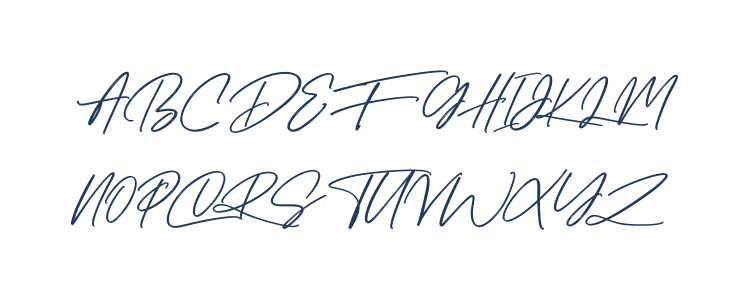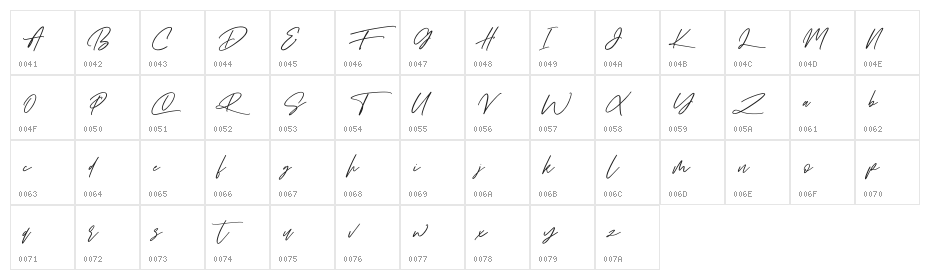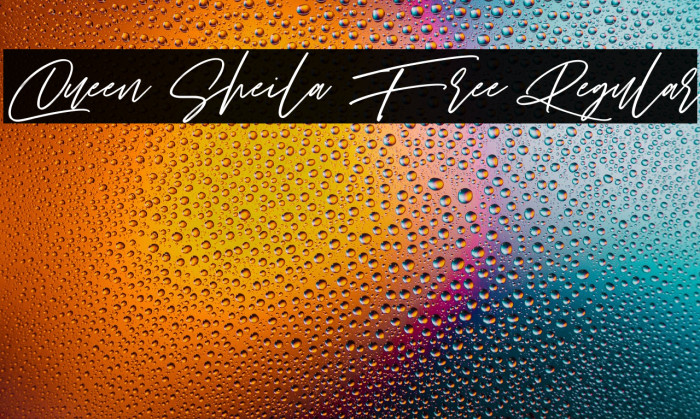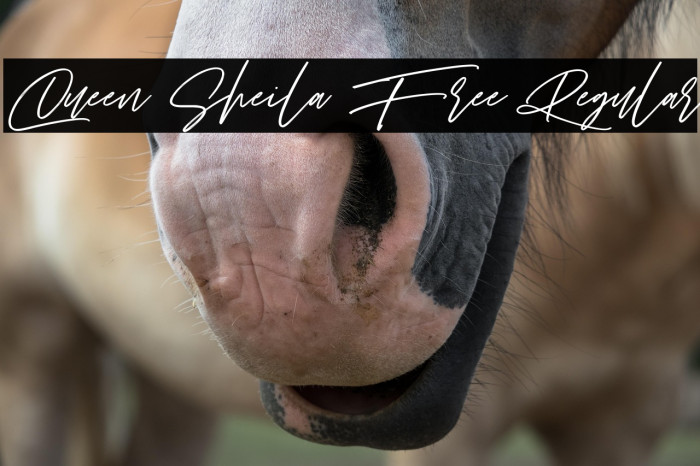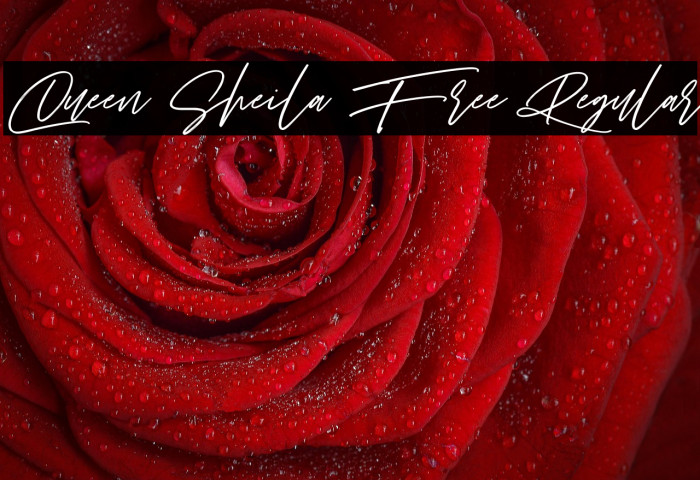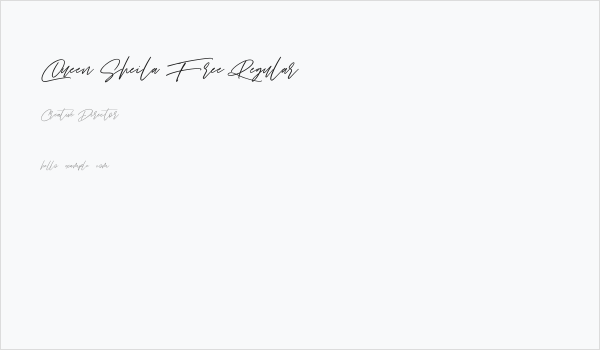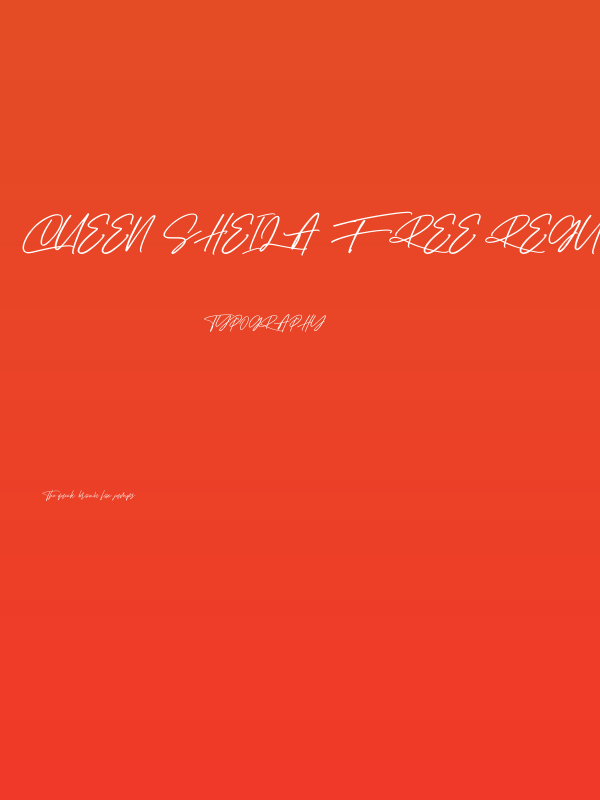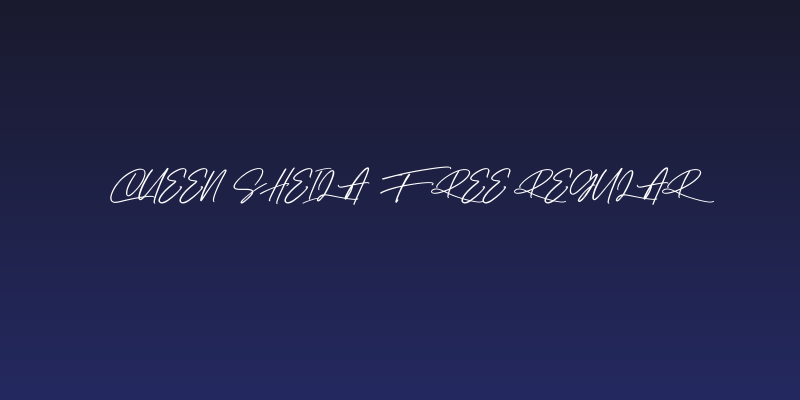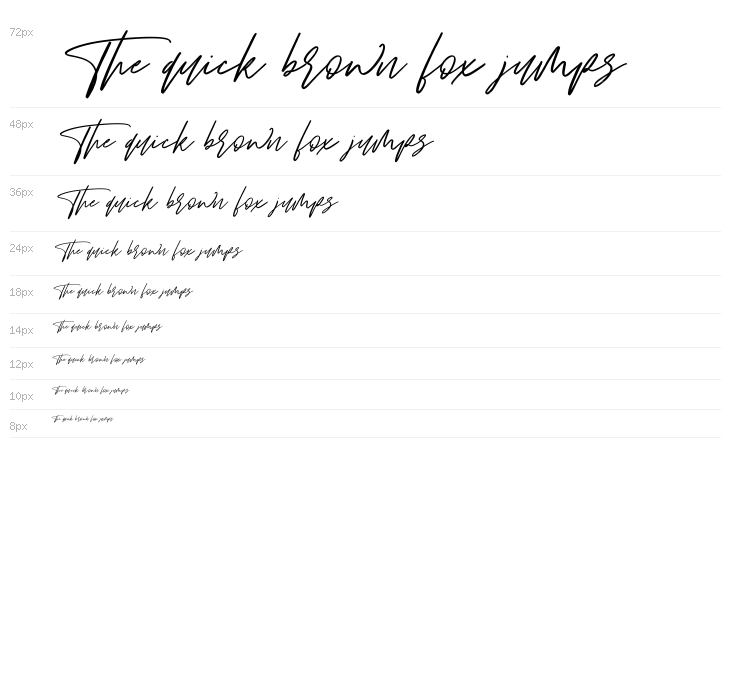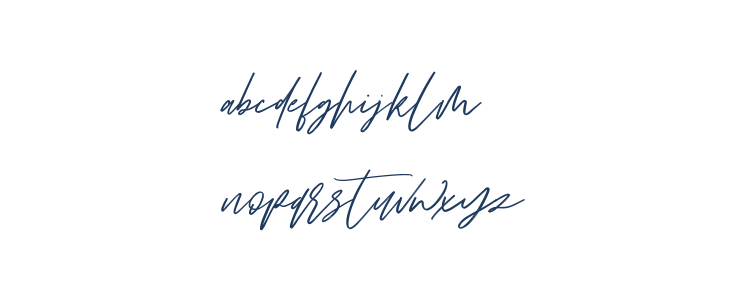
Queen Sheila Free Regular Font
Queen Sheila Free Regular Description
A loose, flowing script font with a handwritten, casual appearance. The strokes are thin and dynamic, with varying angles and a natural, organic rhythm. Letters are connected in a cursive style, and the overall look is expressive and energetic.
| Overall Style | Decorative, Modern, Artistic |
| Use Case | Logos, Headlines, Invitations, Artistic projects |
| Proposed Projects | Invitations, personal branding, greeting cards, social media graphics, quotes, artistic posters. |